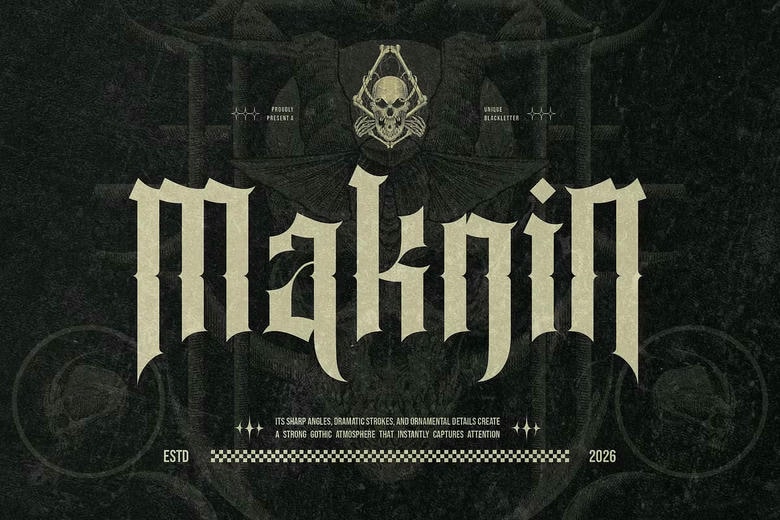
Maknin Font
Maknin blackletter is the dark and gothic type of font to use in all branding and logo designs. This is a beautiful dark and gothic blackletter font. The font is applicable in invitation card designs, cool logos, movie titles, movie names, business cards, book titles, brand names, and other designs.
Maknin blackletter is an elegant and stylish blackletter typeface, including sophistication and the moment. The font can be considered a golden match to any project because of its stylish alternative.
Maknin Blackletter Font